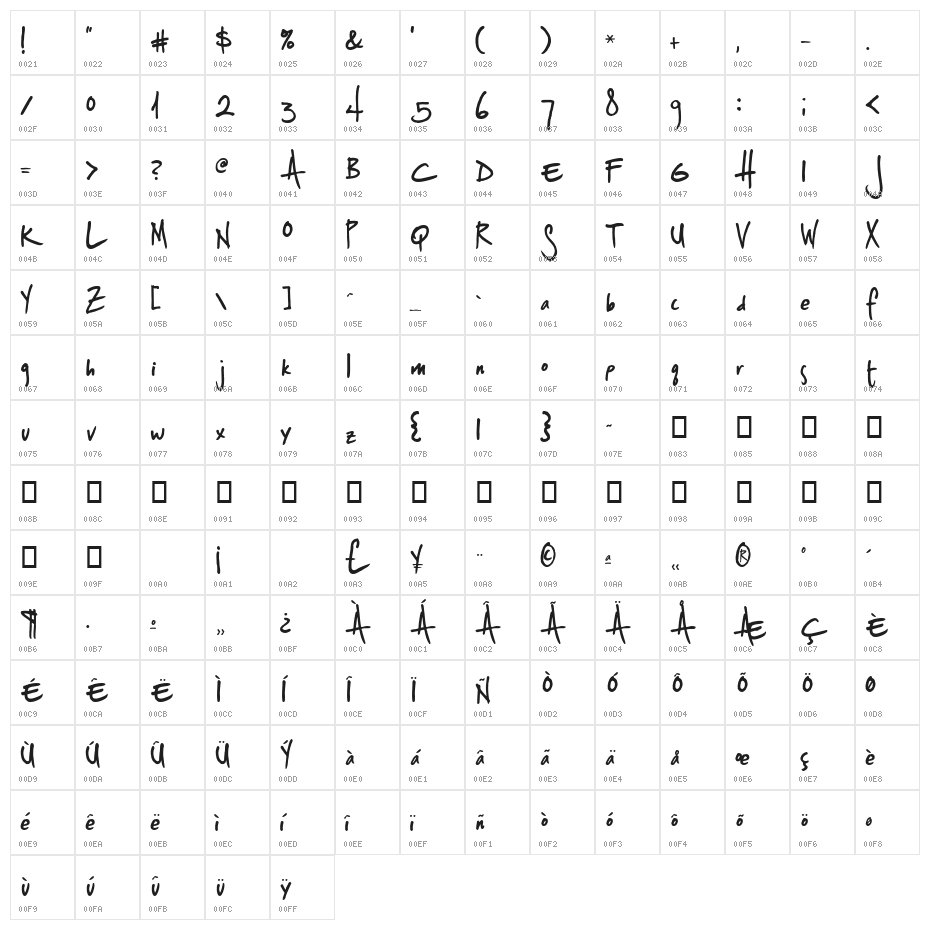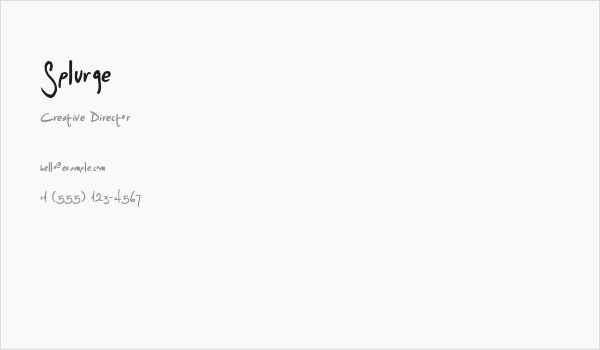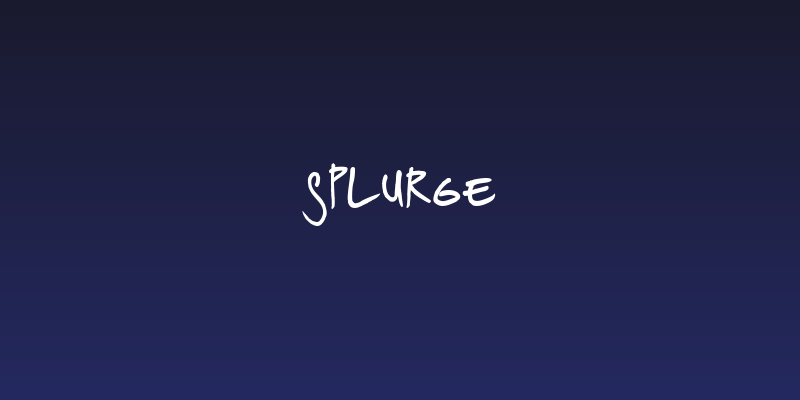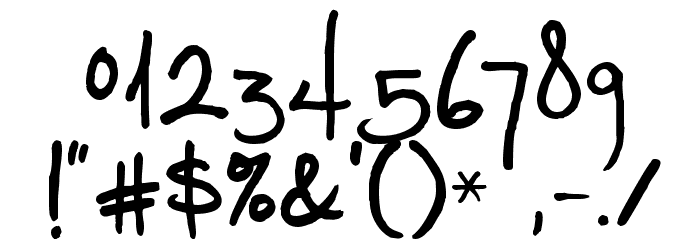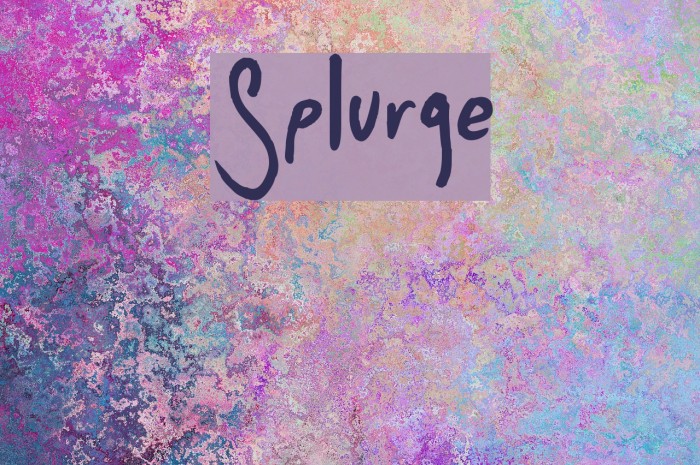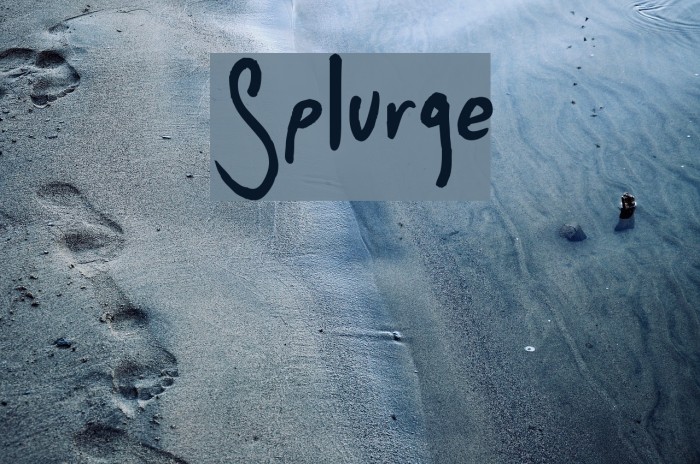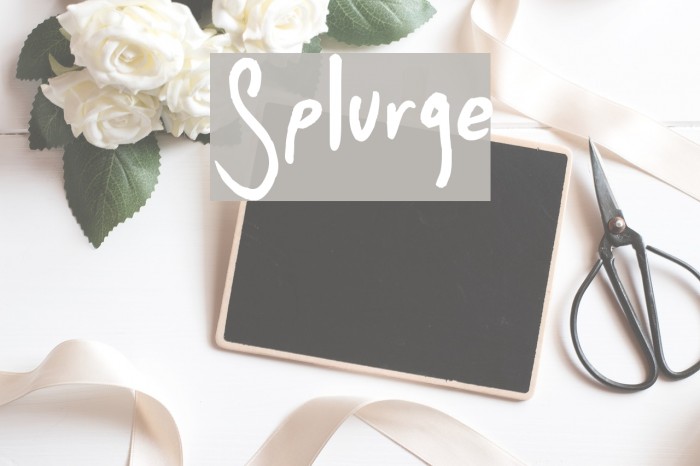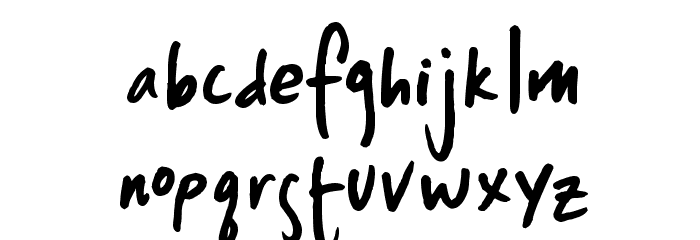
Splurge Font
Splurge Description
This font exudes a playful and energetic vibe with its hand-drawn, casual appearance. The letters are slightly irregular, giving it a lively and spontaneous feel. The uppercase and lowercase characters maintain a consistent style, with a slight tilt and varying stroke thickness that adds to its dynamic nature. The numerals and special characters follow the same informal style, making it suitable for creative and informal projects. Its unique character shapes and informal style make it stand out, perfect for designs that require a personal touch.
| Use Case | Headlines, Creative projects, Informal text |
| Proposed Projects | Ideal for greeting cards, children's books, casual branding, and creative posters. |